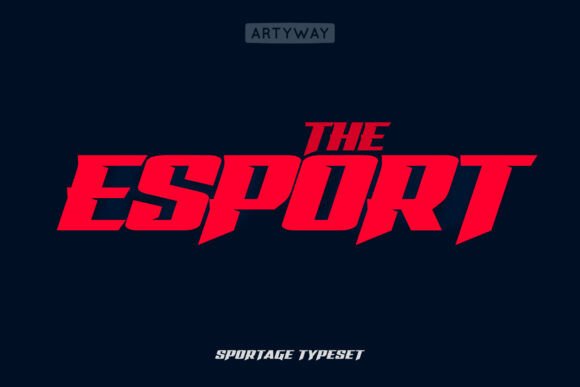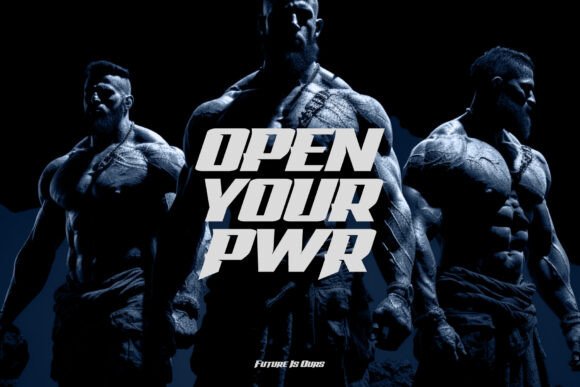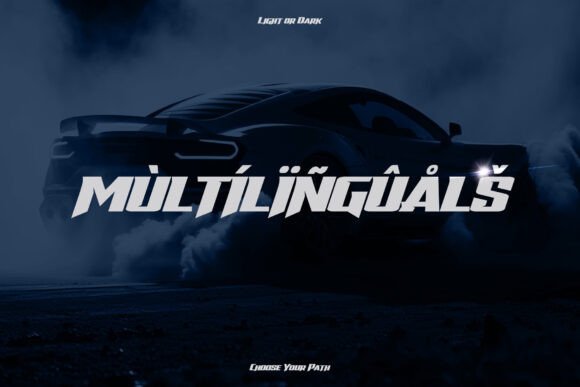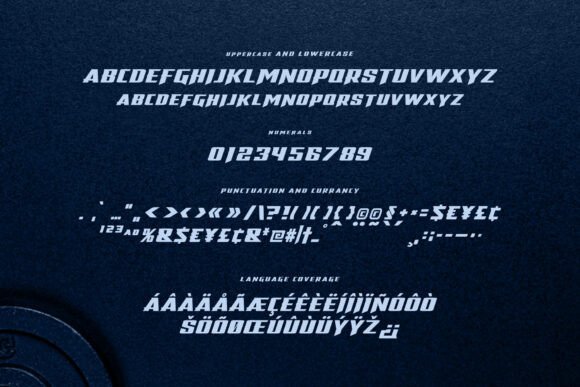
Esport Font
About the Esport Font
Crafted with precision, the Esport Font is ready to bring your ideas to life. **Esport — the ultimate font for high-impact, adrenaline-filled design projects. Tailored for sports logos, dynamic headlines, and powerful branding, the Esport exudes strength and energy. **
With sharp angles, strong lines, and a slightly italicized, forward-leaning stance, this typeface radiates motion and speed, making it perfect for high-stakes environments like esports, racing, and intense gaming contexts. Designed with a sleek, beveled cutout style, DriveForce Bold’s structure combines both a futuristic edge and the aggressive styling of competitive sports typography.
Each letterform is crafted to deliver an imposing and confident look, perfect for projects where boldness and intensity are key. It’s angular cuts and dynamic curves add depth, enhancing the font’s sense of movement—ideal for brands that want to convey power, performance, and precision. Whether it’s a gym logo, an extreme sports brand, or an auto industry campaign, this typeface delivers maximum impact.